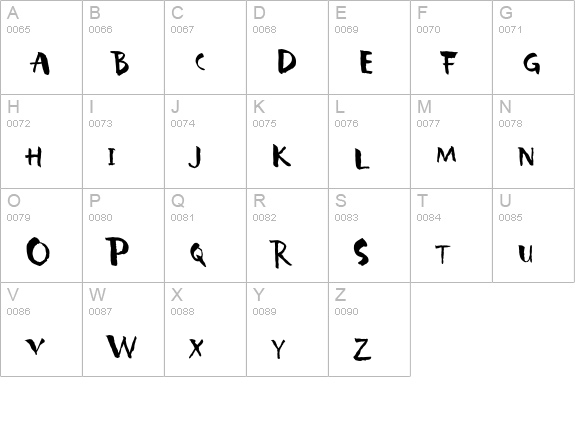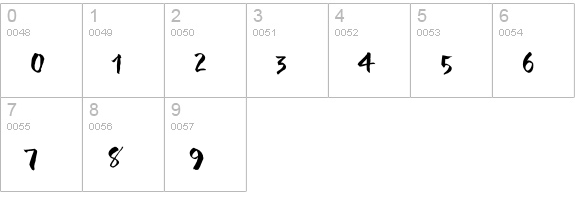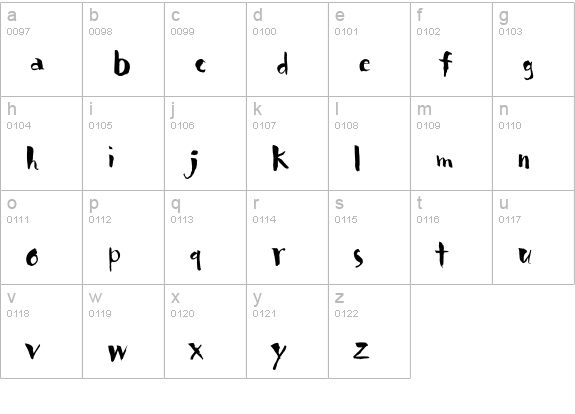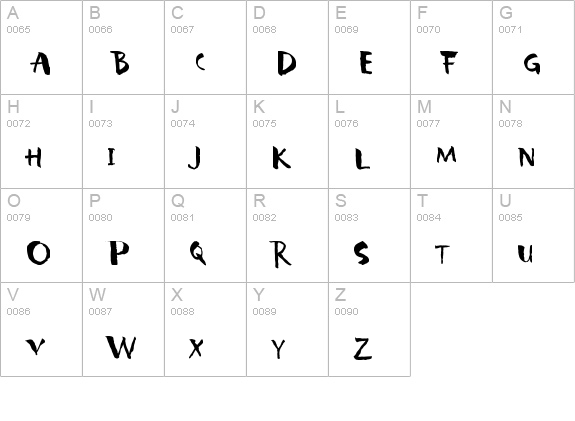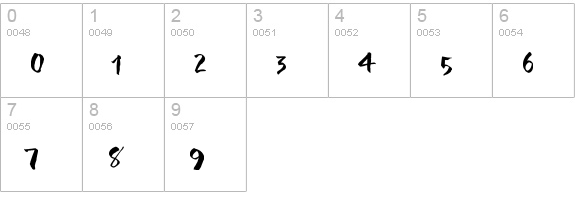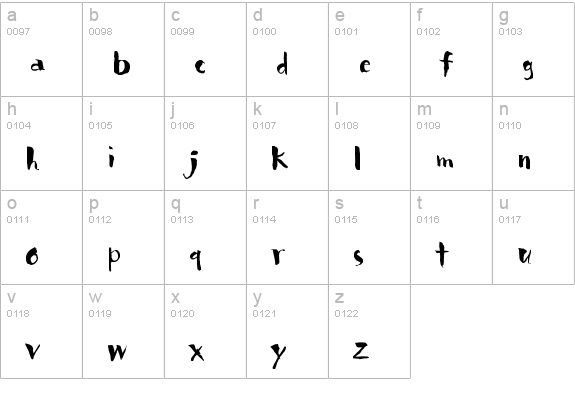
Carumba Std Font Details
Carumba Std is a stylish and modern font that exudes elegance and sophistication. With its sleek lines and contemporary design, this typeface is perfect for a wide range of projects, from branding to advertising to packaging. The versatility of Carumba Std makes it an excellent choice for both print and digital media. What's even better is that Carumba Std is available for free download at FontsMarket.com. This means that you can easily access this high-quality font without any cost, making it a valuable resource for designers and creatives looking to elevate their work. Whether you're designing a logo, creating a poster, or crafting a website, Carumba Std is sure to make a bold statement and leave a lasting impression.